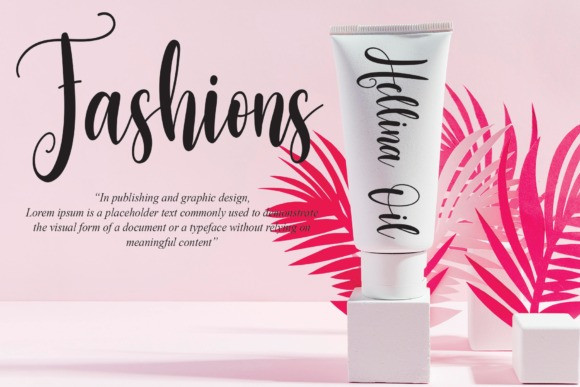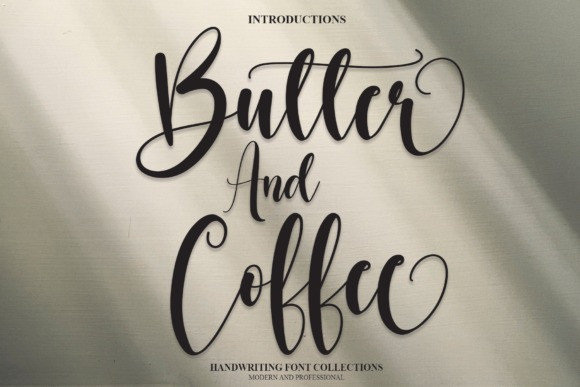
Butter And Coffee Font
Butter and Coffee Font is an exquisite and charming handwritten font. It is perfect for wall displays, wedding invitations, social media post logos, advertisements, product packaging, product designs, labels, photography, watermarks, invitations, stationery, and any project that requires a handwritten taste.